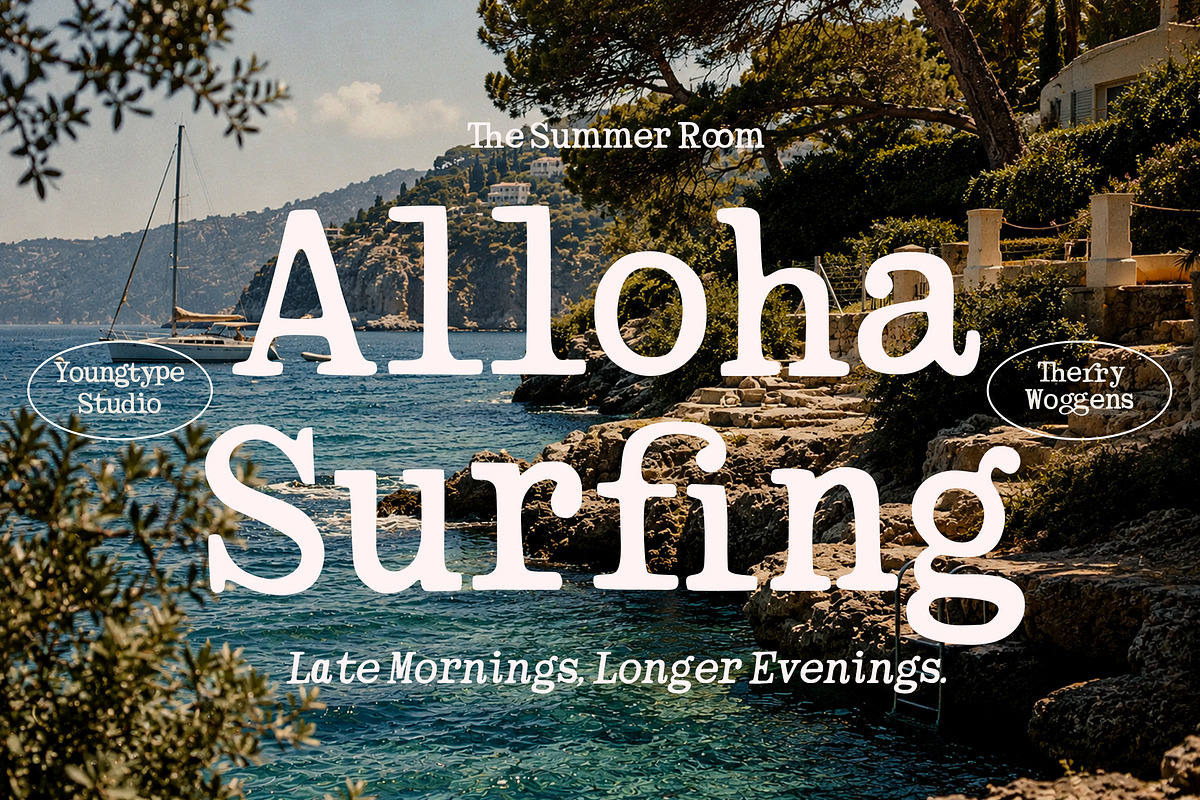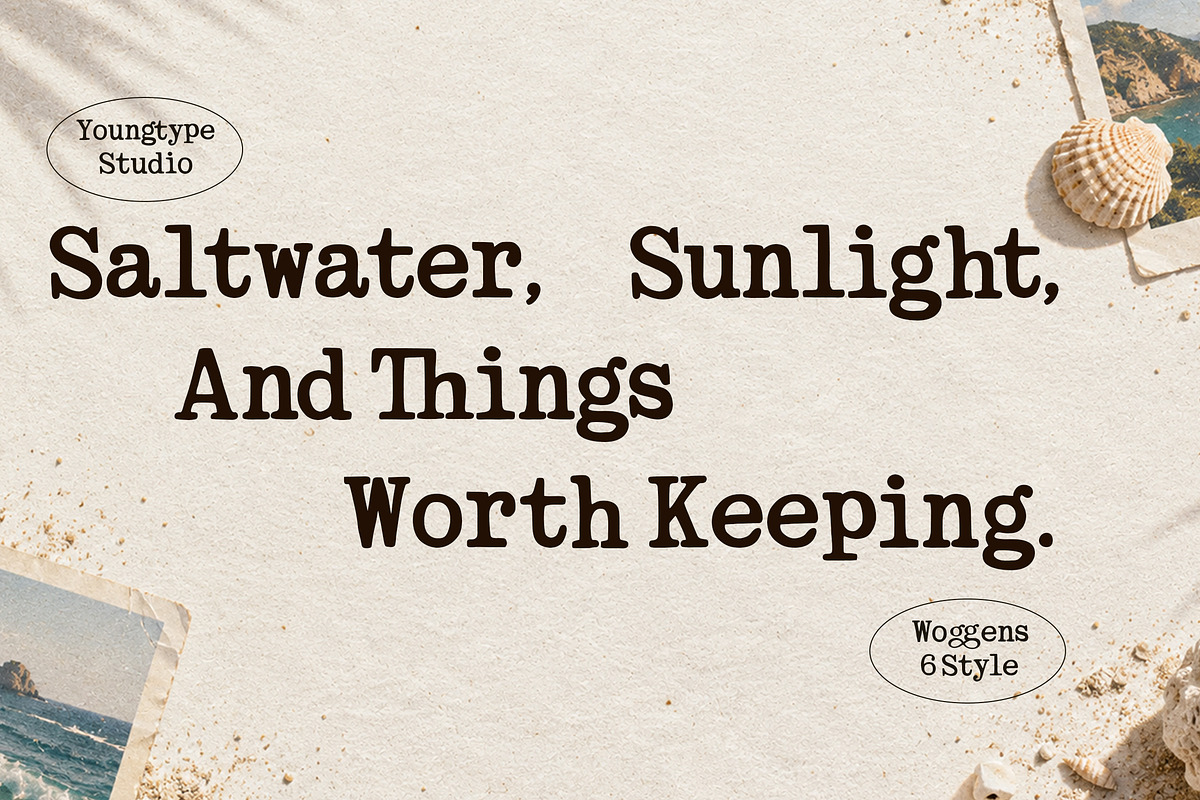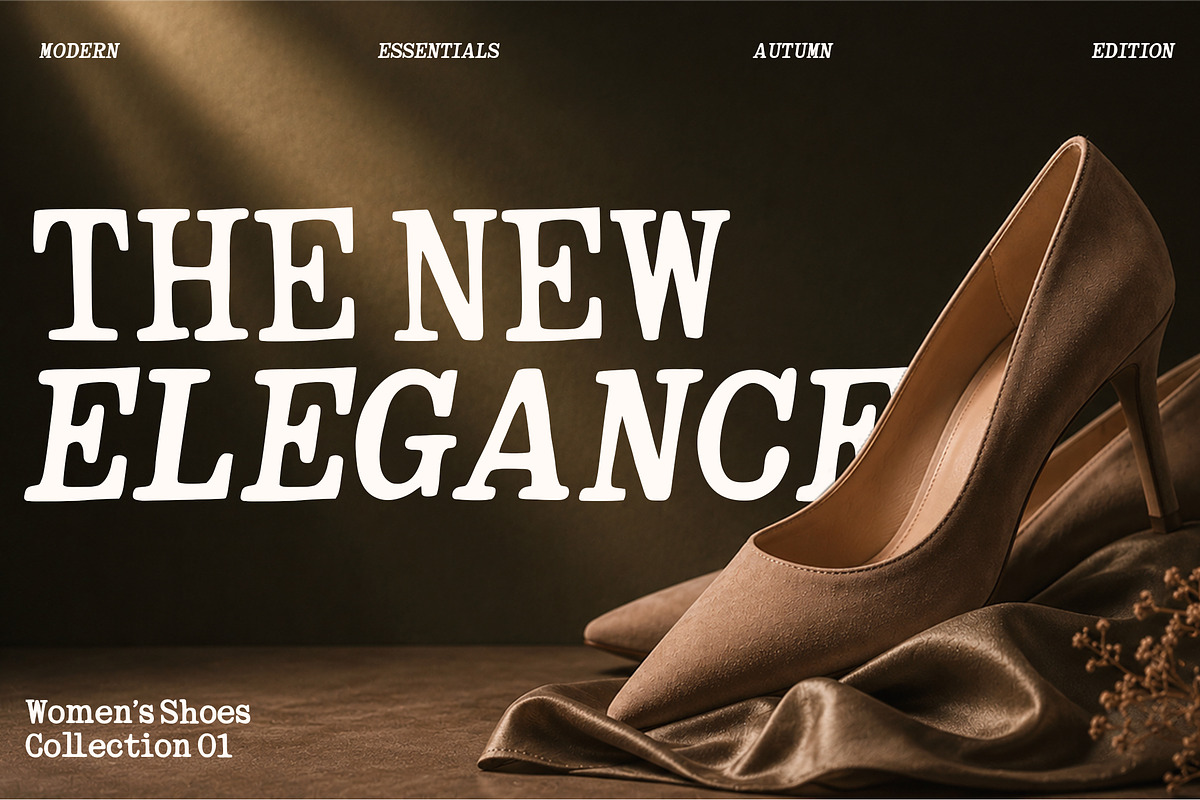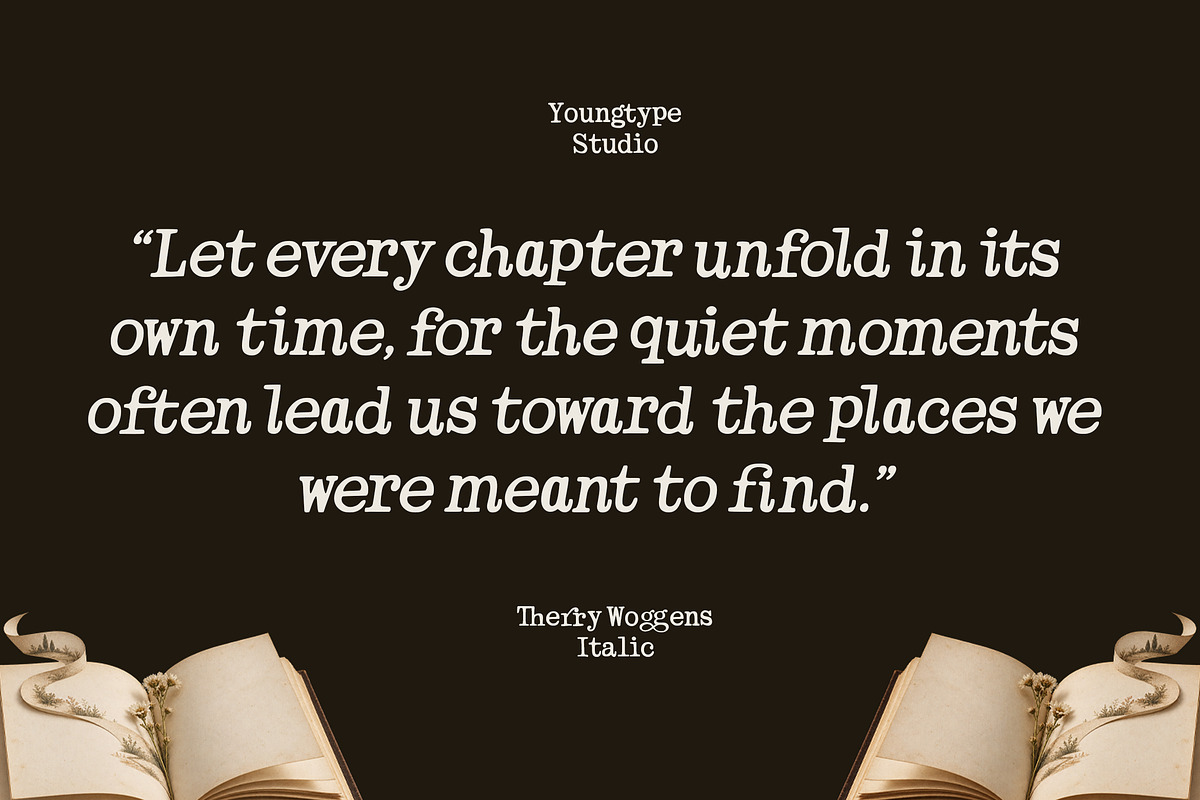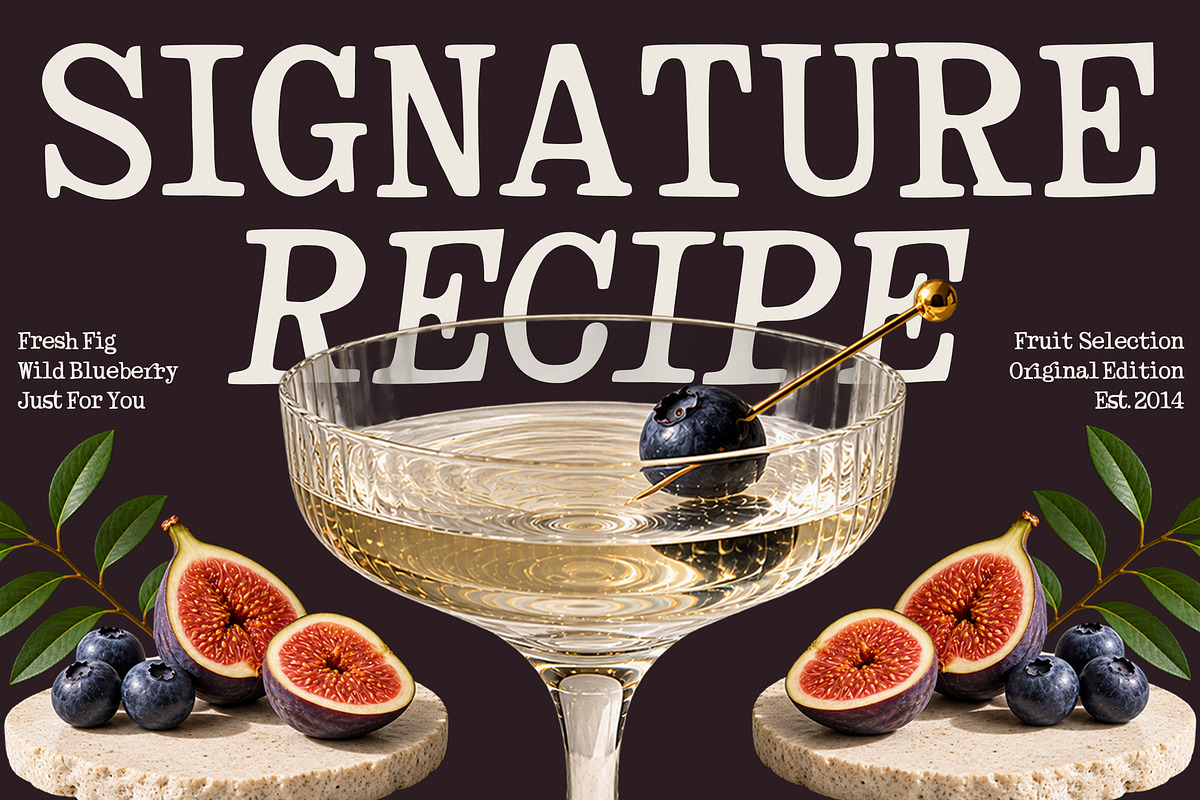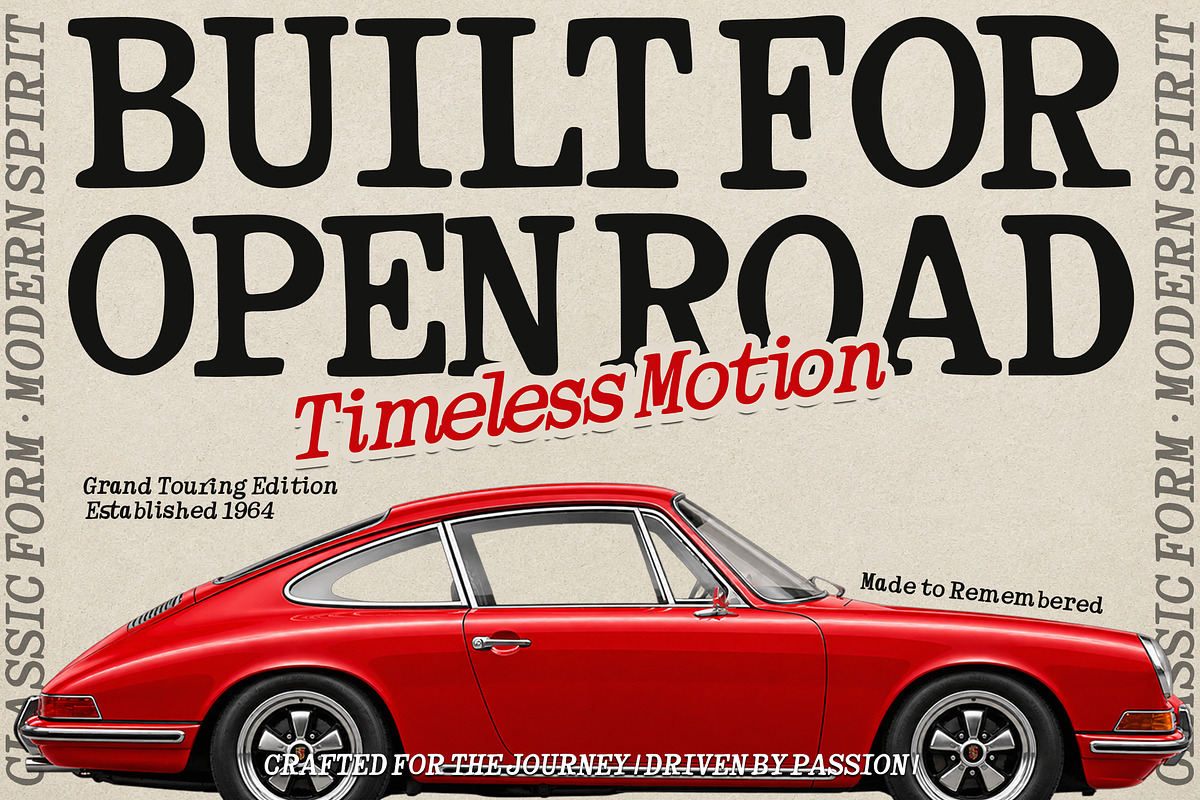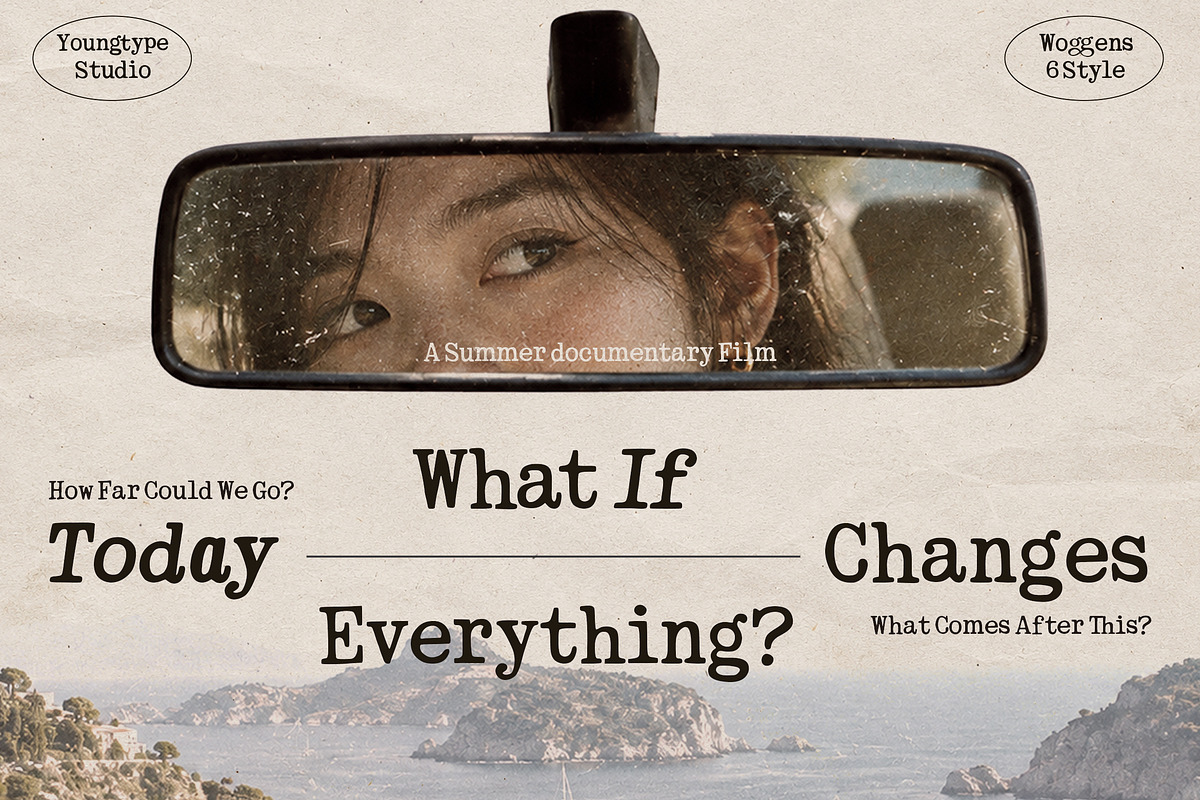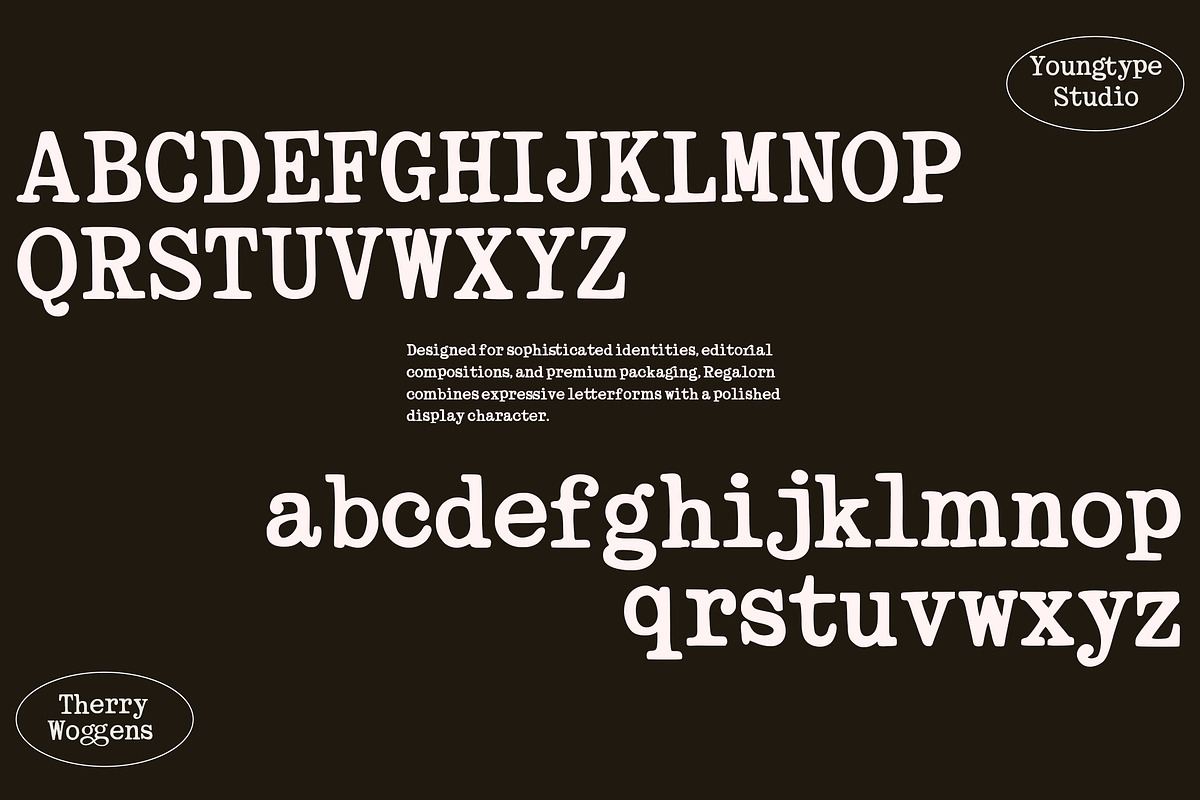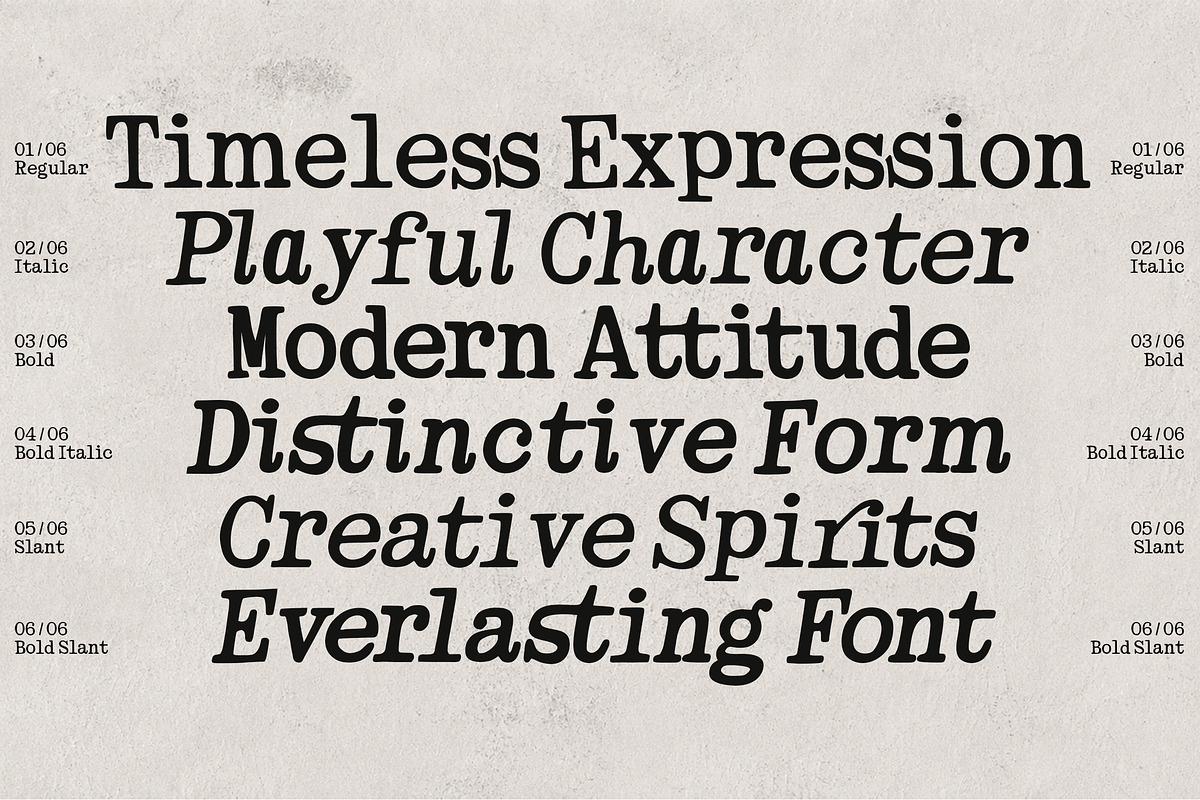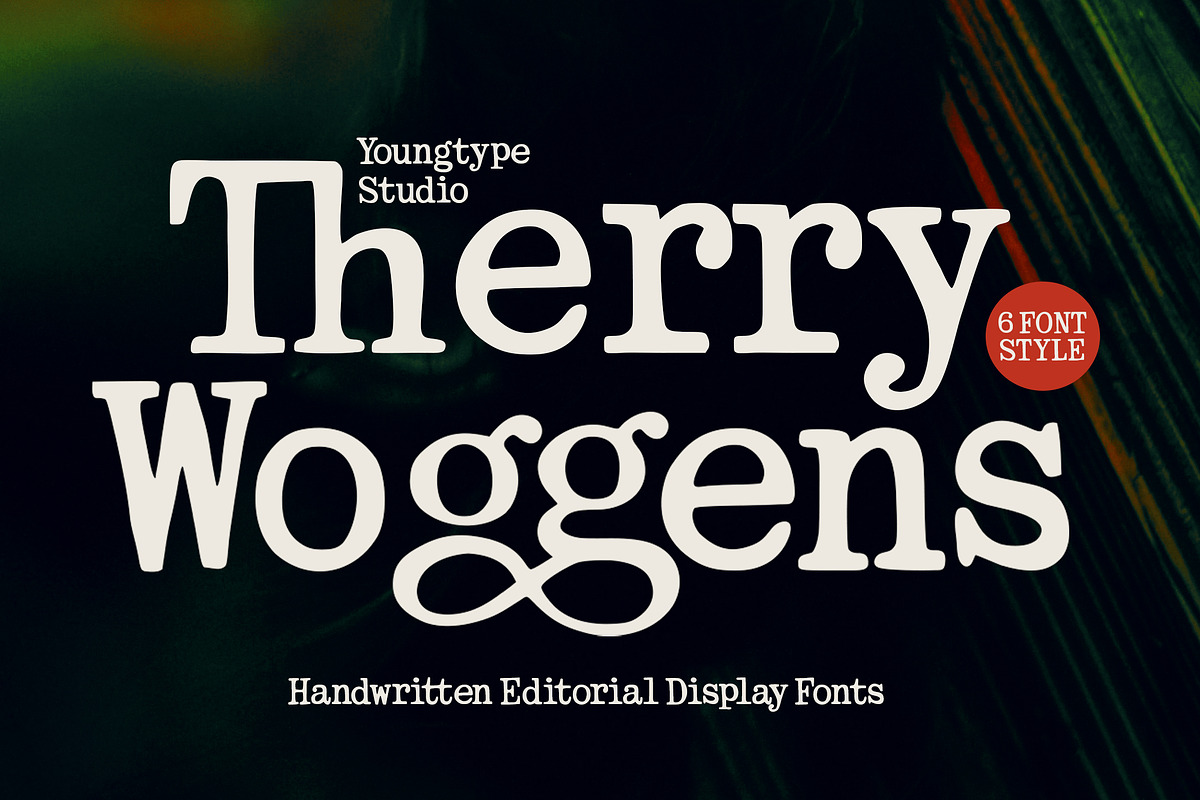
Therry Woggens - Handwritten
Therry Woggens is a bold and expressive display font designed to bring a unique blend of softness, character, and contemporary personality to your creative projects. Its distinctive letterforms feature rounded curves, organic shapes, playful proportions, and elegant flowing details, creating a strong visual identity while maintaining a warm and approachable feel.
With its bold presence and soft personality, Therry Woggens works beautifully for modern branding, editorial design, fashion projects, posters, packaging, logos, social media graphics, album covers, invitations, and creative advertising. The unconventional curves and fluid forms give the typeface a stylish and artistic appearance that can instantly make headlines and large typography stand out.
The font is especially suitable for designers looking for something bold but not aggressive, elegant but not overly formal, and playful without losing sophistication. Its unique personality makes it a strong choice for brands and designs that want to feel modern, creative, confident, and memorable.